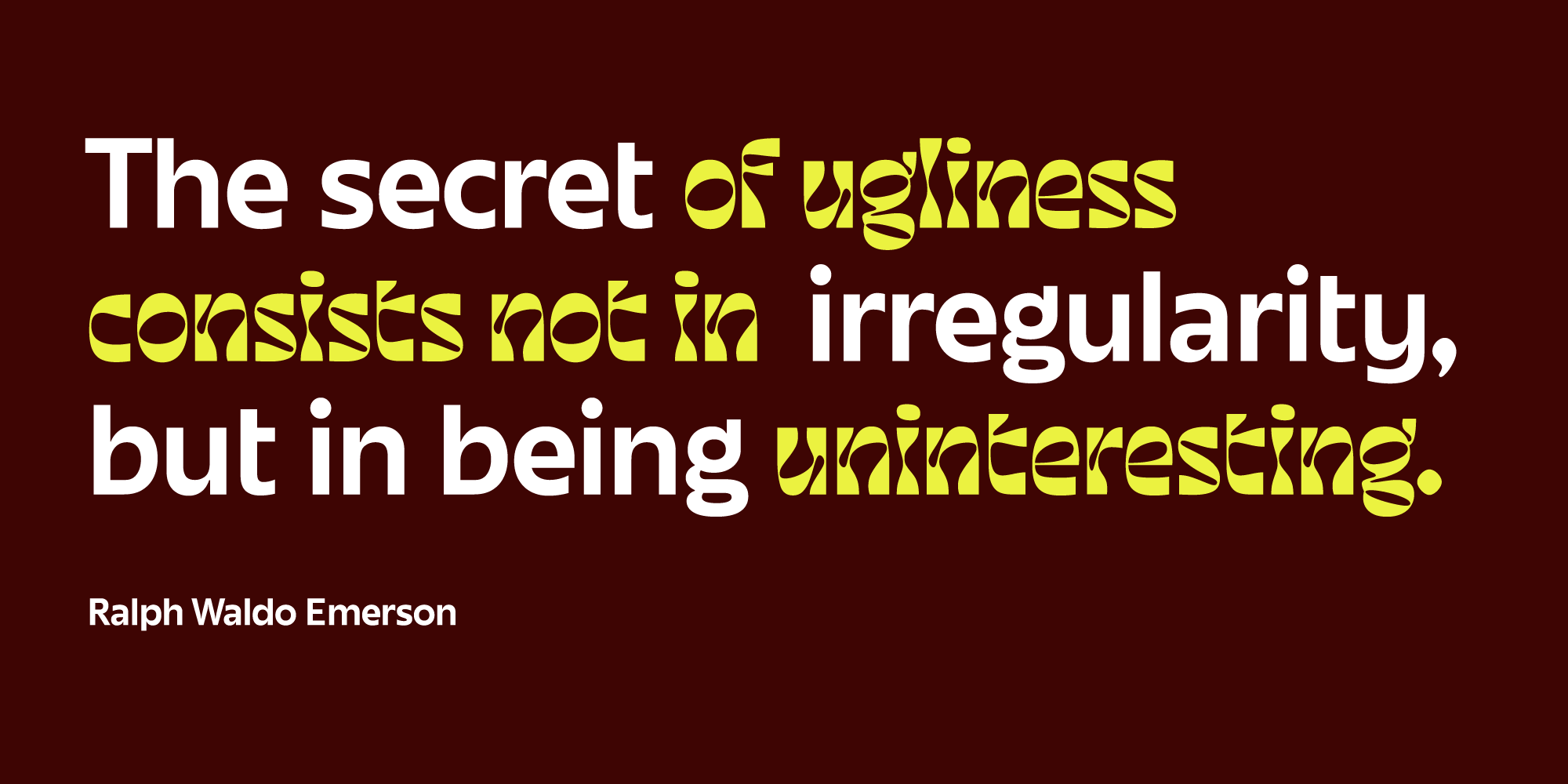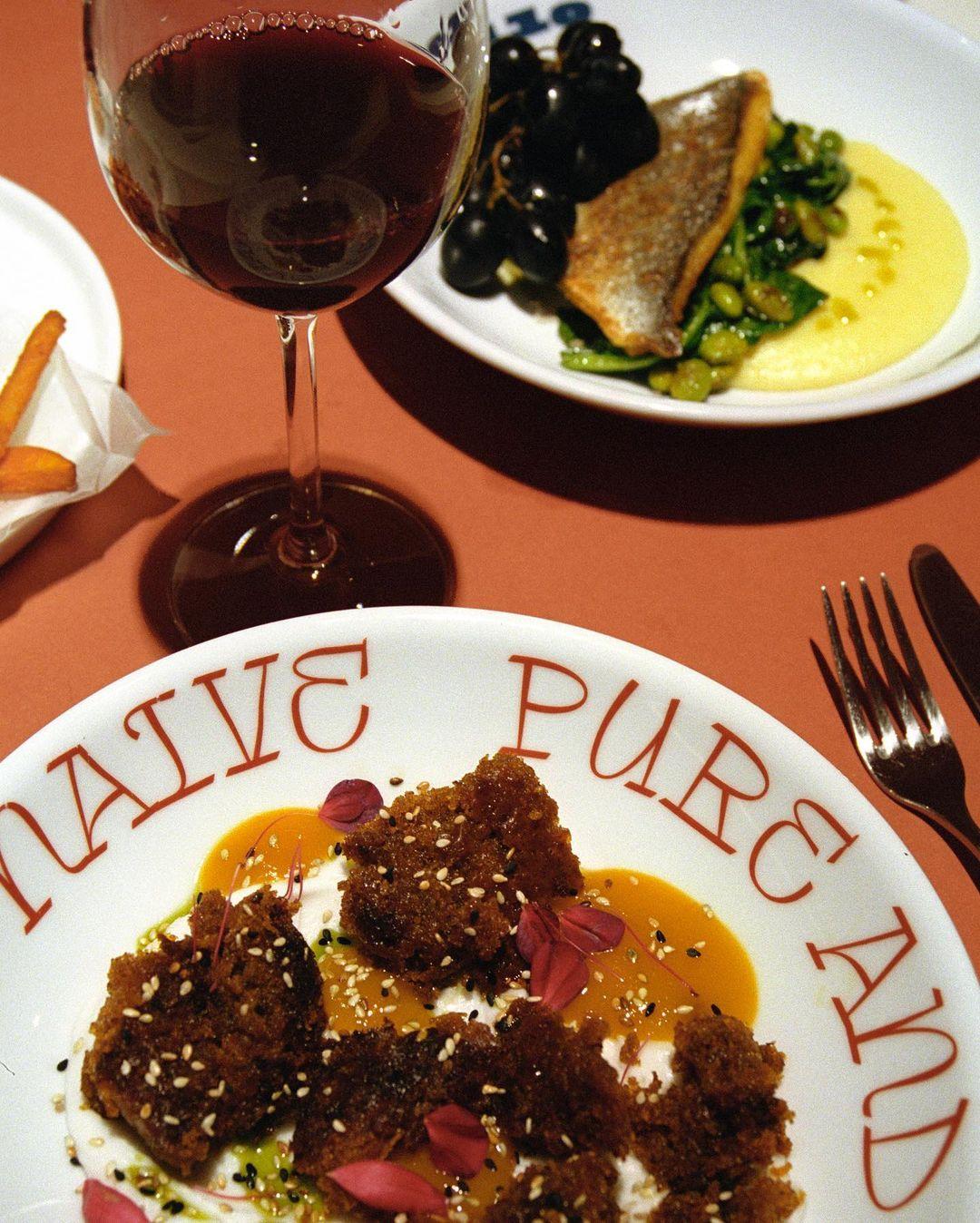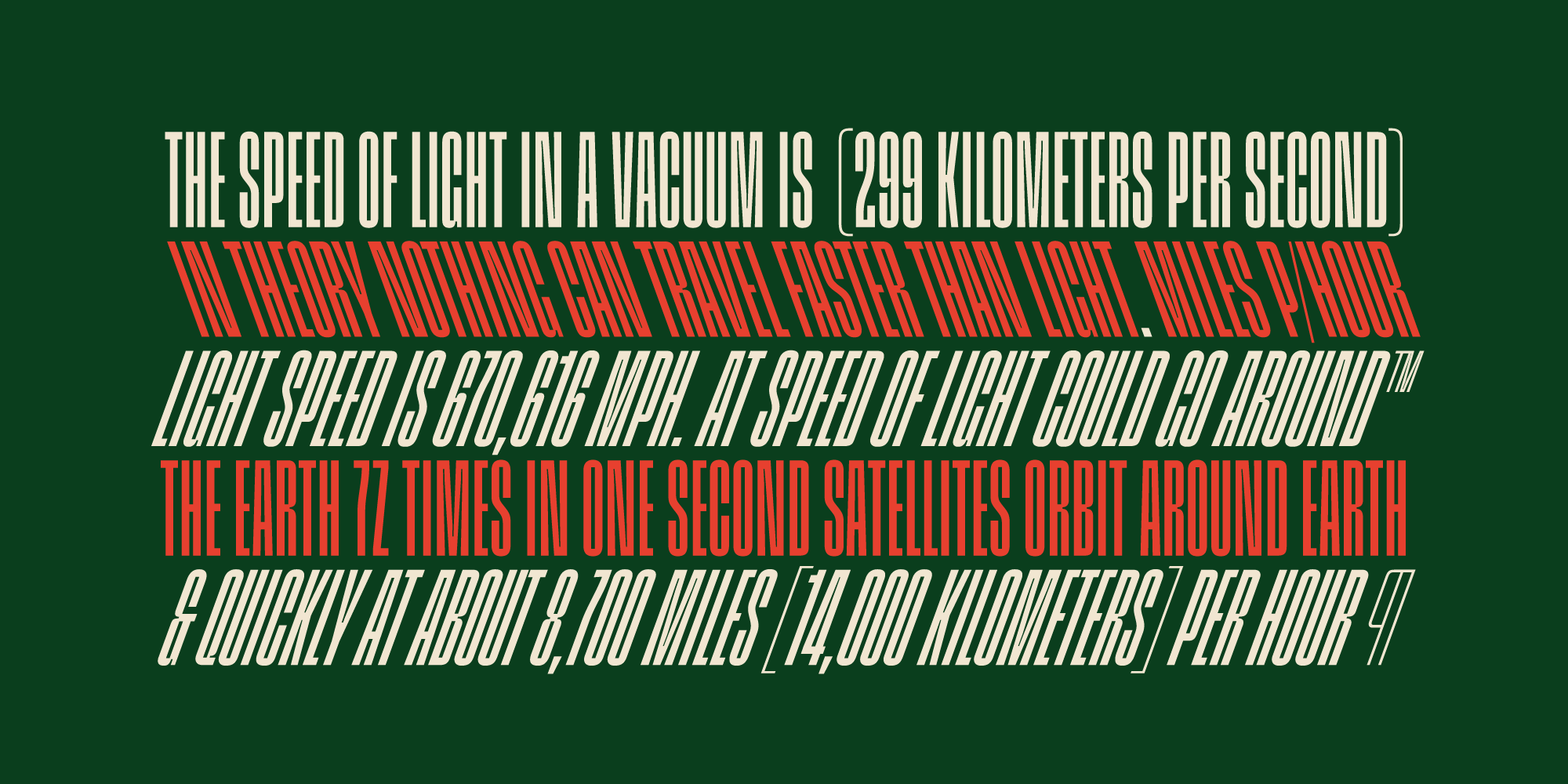
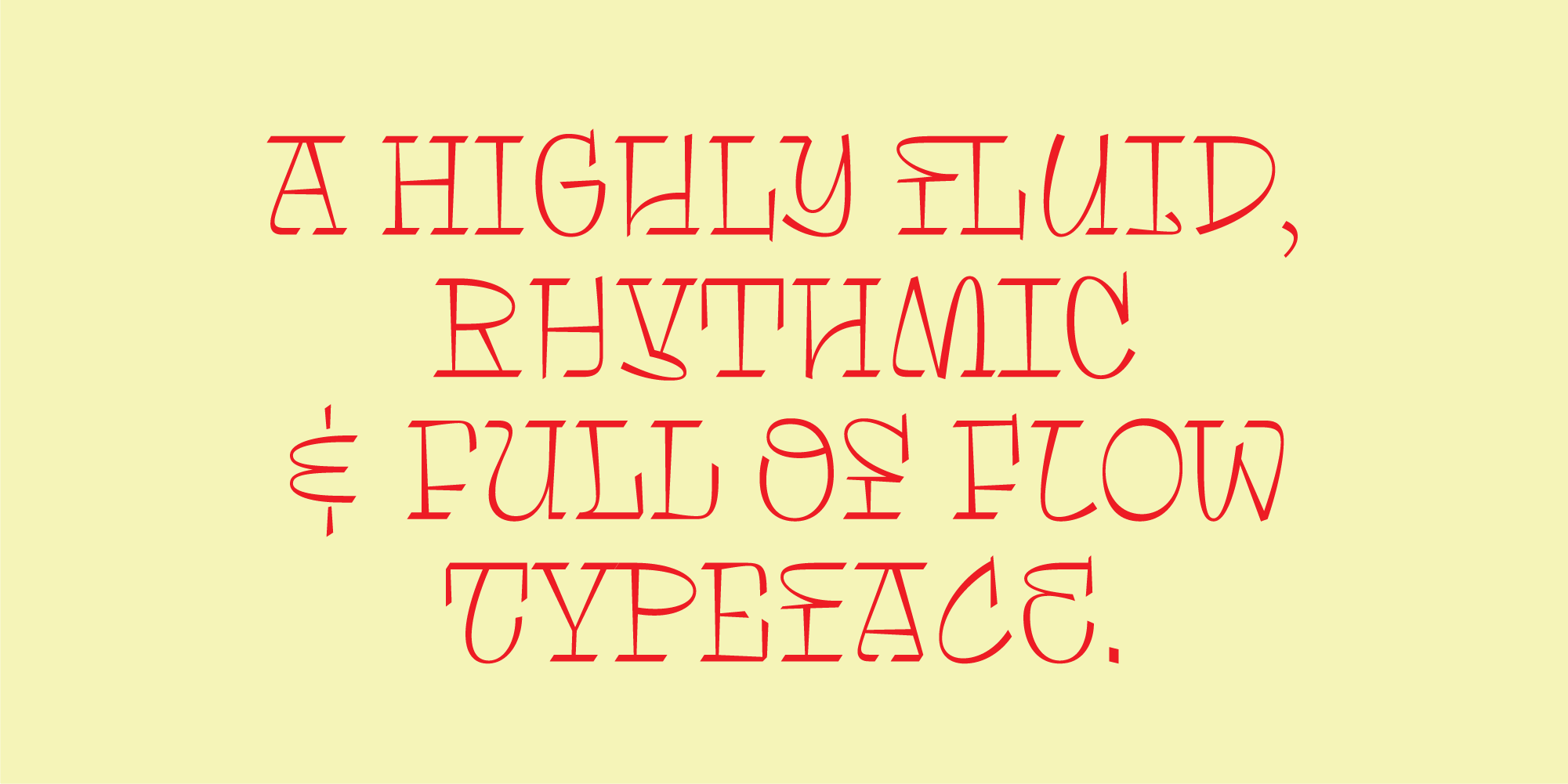
Lucas Czarnecki: If you can remember a specific moment, when and why did you become interested in type design?
Fernanda Cozzi: I studied graphic design because I love letters—that’s the truth. I wanted to become a type designer before I even knew it was a thing.
As a teenager, my friends and I made graffiti and “tags,” so spray paint and markers shaped my idea of letterforms. And then, in college, the real love for typography was born. It happened during the calligraphy courses, the typography events … it was all I needed to become a true type groupie.
When I finished my graphic design degree, I enrolled at the University of Buenos Aires with a specialization in Type Design. There, it all made sense: theories, ways of doing, seeing, using, thinking letters … in a word, happiness. I can’t see myself doing anything else.
LC: What’s the story behind your first published typeface?
FC: My first published typeface was Síncopa, which started as my postgraduate project at the University of Buenos Aires.
Síncopa is named after syncopation: the unexpected, uneven, or offbeat rhythms in music. Syncopation transforms a regular metronomic beat into something that stirs us to feel, move, or dance. I wanted to explore the forces of stability and dynamism, of the beat and the offbeat. So, I tried to make letters that could sing like three of my favorite queens of jazz: Billie, Nina, and Ella. Síncopa seeks to emulate their bold voices and distinctive personalities with highly contrasting strokes and eclectic letterforms.
It took me a few years, countless tears, and a lot of work to finish it and feel like it was okay to release as my first commercial font. I constantly found things that I could change, fix, improve and I couldn’t close it. It was Alejandro Paul who pushed me to take a break from crying and finish it. The rush of “completing” the typeface was great! Full of fear and excitement, but really great. And there I really understood that I wanted to dedicate myself to doing this.
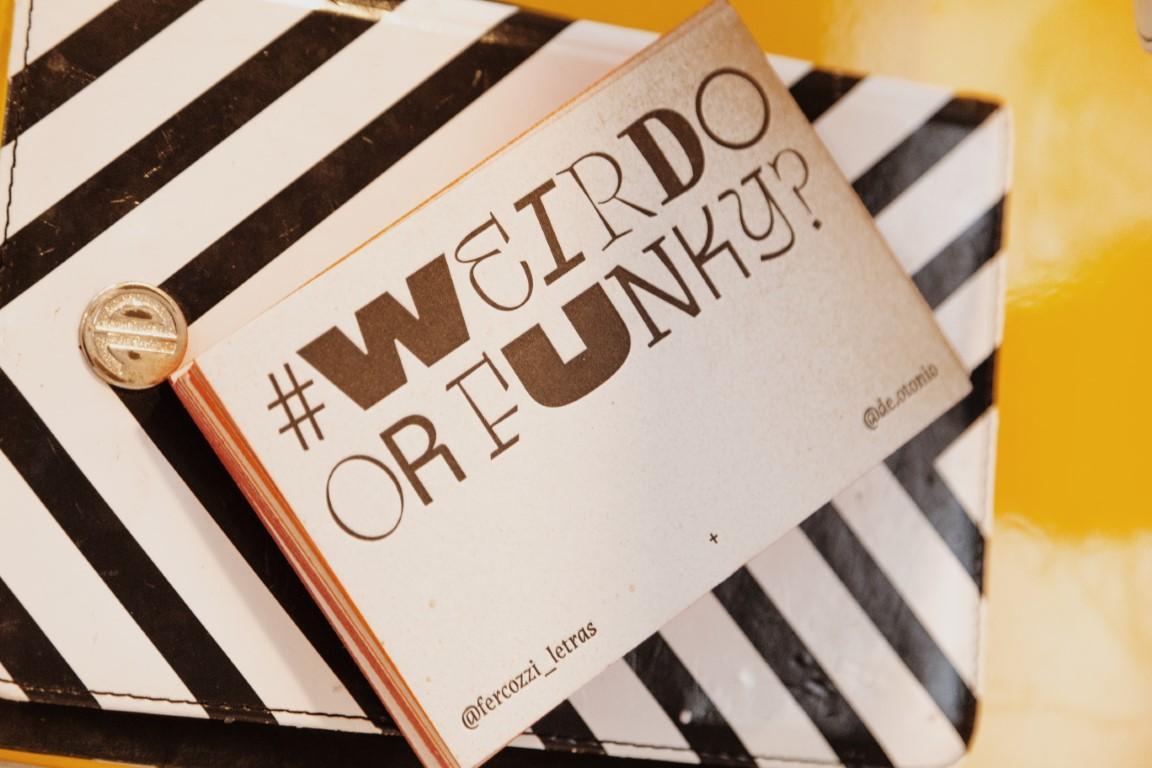
This letterpress-printed postcard from Buenos Aires Letterpress combines many of Fer Cozzi’s fonts into one lively composition. Featuring Gabriella, Tomasa, Inge, and some yet to be released.
LC: You worked on your high school newspaper and then at a few magazines later on. How have these editorial experiences influenced your type design practice?
FC: As a graphic designer, I focused on editorial design, mostly as a way to be close to typography. I liked giving my designs personality just by choosing this or that typeface. I loved the idea of giving different flavors or sensations by combining fonts, mixing and contrasting them, and putting together a new texture just by combining them as ingredients. That is still how I think about letters when I draw them.
I don’t have a focus on fonts for text, which is surprising for an editorial designer, but that editorial experience means that I test my fonts by mixing them together repeatedly. I like them to be combined, to coexist, to express themselves … and even if I become a constant generator of useless fonts, I hope it will not be because of a lack of character.
LC: How did you decide to start your own foundry?
FC: The truth is that I did not know that I was starting my own foundry… even today I find it hard to think of myself as a foundry! In my mind, a foundry is a company, and I still feel like a girl at the bottom of the world drawing and trying to sell fonts.
But I think that I started this (Fer Cozzi) because I like to understand almost everything I do. Being the one behind the whole process, I have complete control over what happens, with all its advantages and disadvantages.
I had to learn how the production of the font is done, how to promote it, how to put together a EULA, how to do administrative tasks, and how to sit down for hours answering emails. And for me—a control freak—it is the best way to live in peace with myself.
It is a lot of work, especially if you are in or from Latin America, but the happiness I get from each achievement is incomparable. It keeps me constantly moving, learning, seeing, doing, and growing.
My day is a constant dance between pending things, urgent things, important things, and things that I want to do. Sometimes there is a lack of time and there is plenty of desire, sometimes it is difficult to find the balance and the drive to continue if the financial reward isn’t commensurate with the effort. But again, I wouldn’t trade it for anything. In adversity, I always find the support of working with colleagues and friends, looking for spaces to share and grow.
I can see how things have been giving and settling for me, and I feel like growth was organic, slowly but surely, consolidating what I did at every step, without rushing to get to where someone else believes “success” lies.
Not less important: I had no other option. I didn’t have the opportunity to join an existing foundry or build a career in the industry in that way when I finished studying. I had to find my own way to make it happen. And even now, I’m still trying to figure out how to do it.
Cozzi in her studio, where she prefers to design as much as possible on paper.